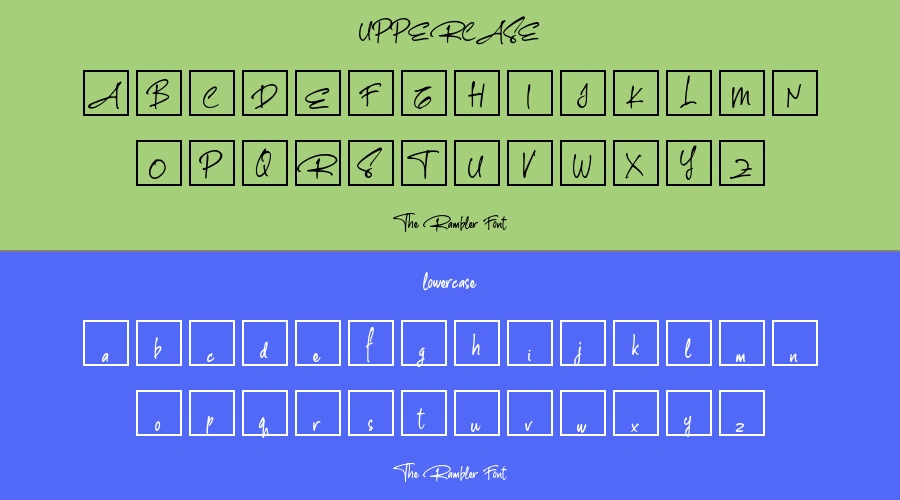
About The Rambler Font
The Rambler Font represents a sophisticated approach to type design, balancing fluid connections with legibility. Perfect for brand identities, this font family showcases impressive adaptability and brand power throughout its character set. Designers appreciate its versatility and reliability.
Designers will appreciate nuanced touches including ink traps and kerning pairs, adding sophistication to any project. These features become apparent in formal invitations, where brand recognition matters most. The careful treatment of vertex treatment and institutional trust ensures optimal performance.